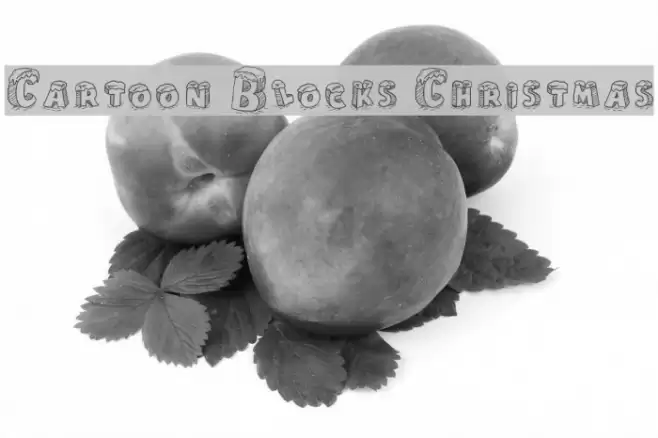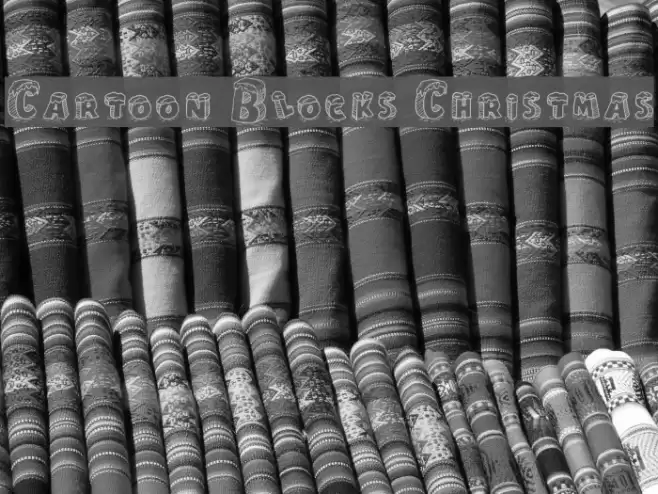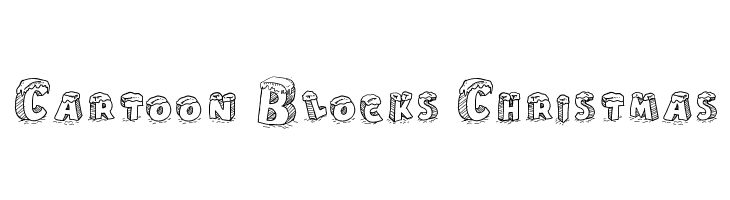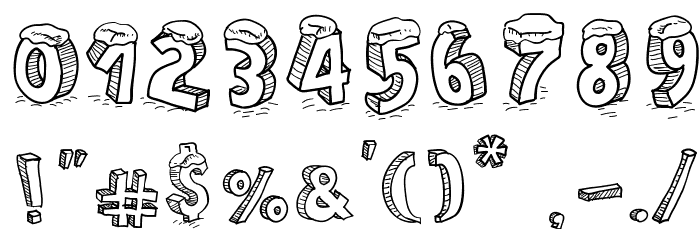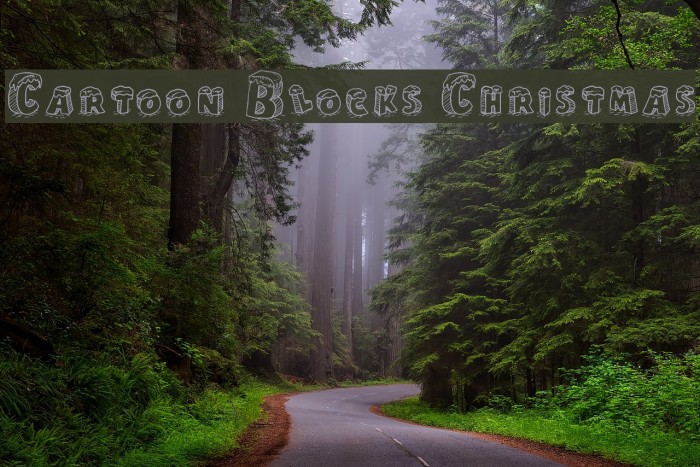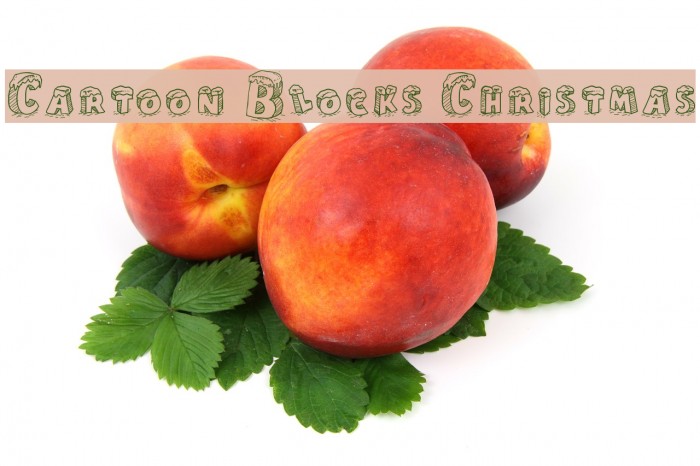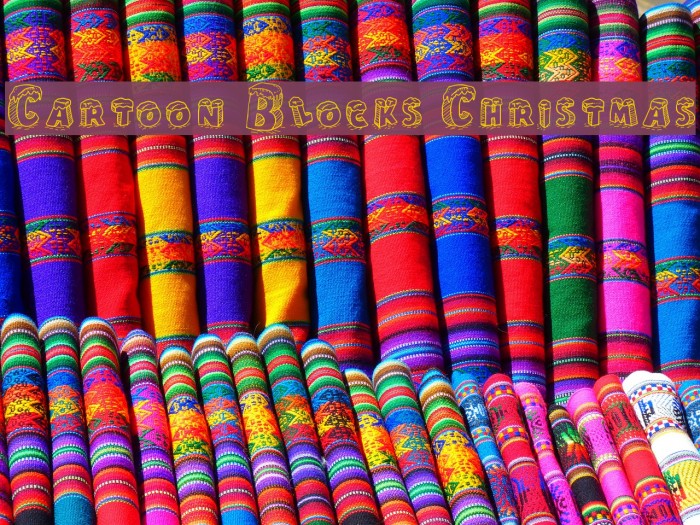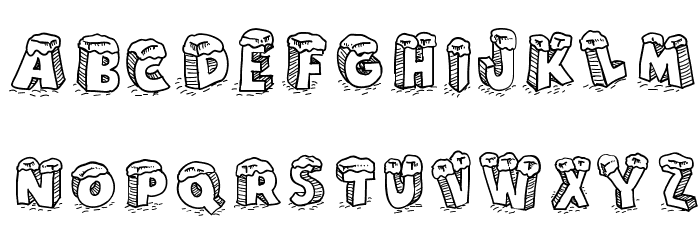
Cartoon Blocks Christmas Font
Cartoon Blocks Christmas Description
This playful and festive font features a cartoonish block style with a Christmas theme. Each character is designed with a three-dimensional effect, giving the impression of depth and volume. The letters are adorned with snow caps, adding a whimsical and seasonal touch. The hand-drawn quality of the strokes adds to the charm, making it perfect for holiday-themed projects. The font includes both uppercase and lowercase letters, numbers, and a variety of special characters, all maintaining the same decorative style.
A playful, 3D cartoon block font with a Christmas theme and snow-capped letters from Uncategorized fonts.